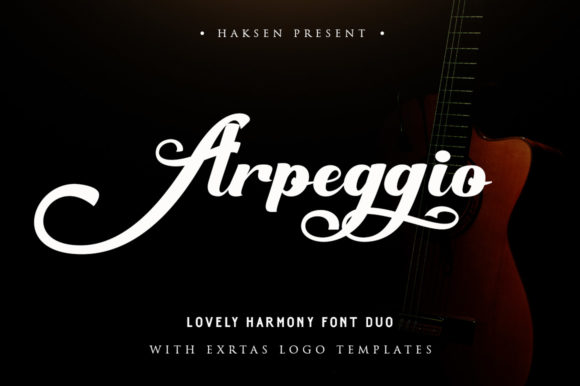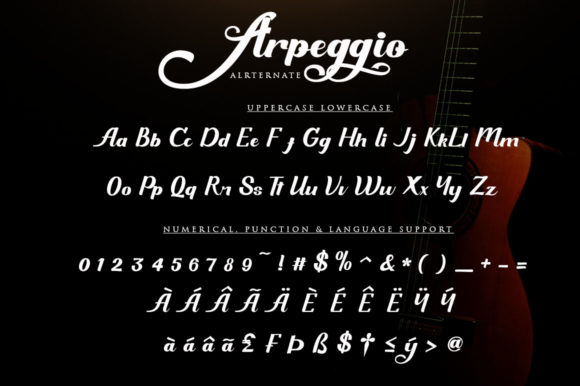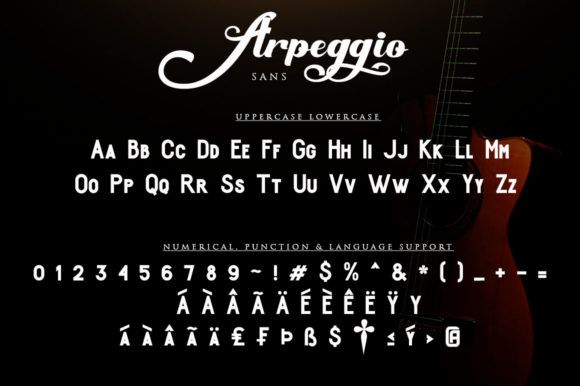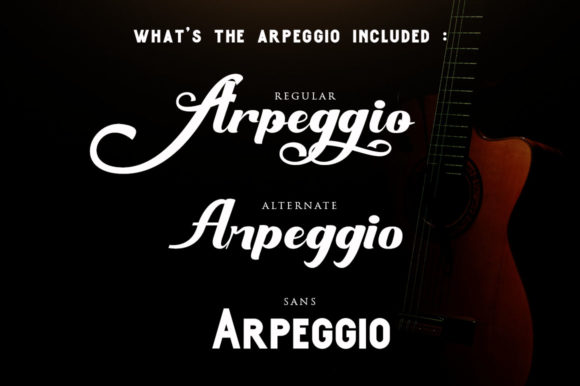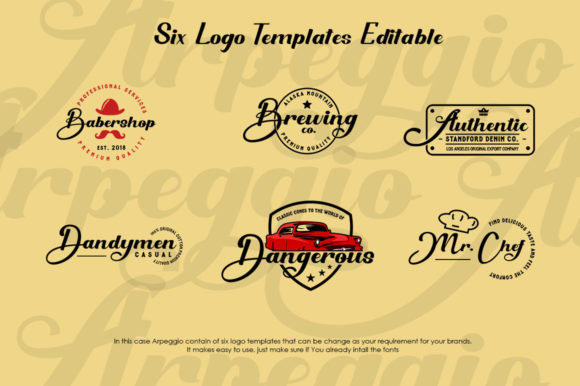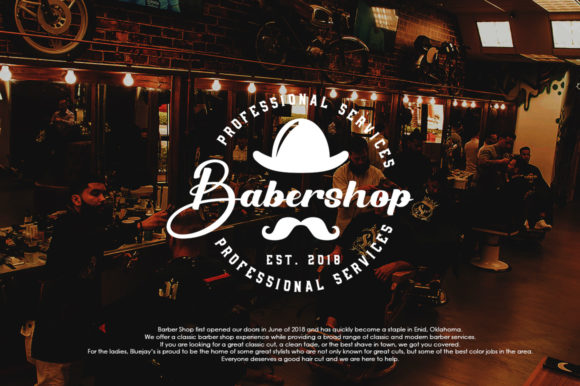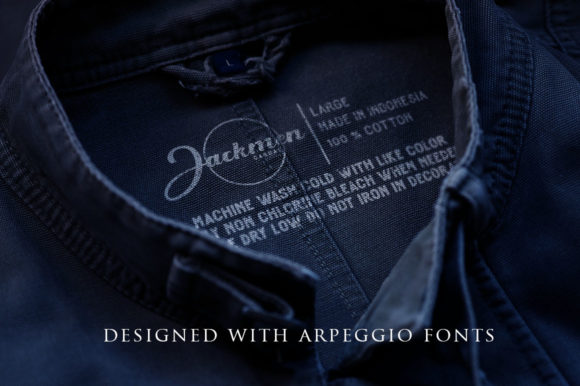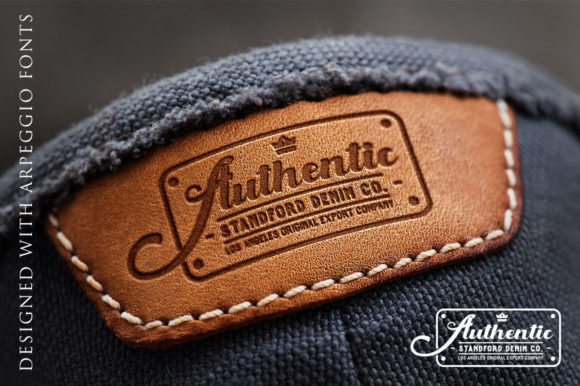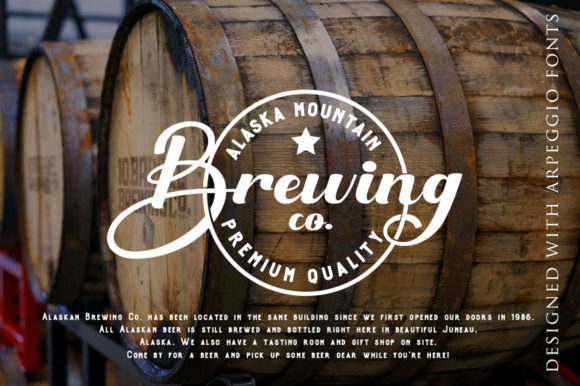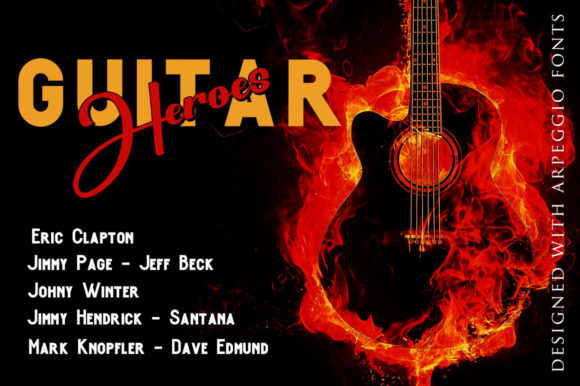
Arpeggio Duo Font
About Arpeggio Duo Font
Introducing “The Arpeggio,” a versatile handmade font duo designed to offer a wide range of creative possibilities. This font duo is more than just typefaces; it’s a design toolkit that includes both a script and a sans version, allowing you to create multiple unique designs. As a bonus, the package includes 6 logo templates, enhancing its versatility and value.
“The Arpeggio” stands out with its script and sans versions, providing flexibility in crafting various designs. Whether you’re working on greeting cards, branding materials, business cards, quotes, posters, or any project that requires a handmade touch, this font duo delivers with its distinctive and complementary styles.
The script version of “The Arpeggio” exudes a sense of handcrafted elegance, while the sans version offers a clean and modern aesthetic. The combination of both types allows you to mix and match, creating designs that seamlessly blend sophistication and simplicity.
As a bonus, the inclusion of 6 logo templates adds an extra layer of value to “The Arpeggio.” These templates provide ready-made solutions for creating visually engaging and professional logos, saving you time and effort in the design process.
In summary, “The Arpeggio” is more than just a font duo; it’s a design toolkit that empowers your creativity. Embrace its script and sans versions for a variety of applications, and explore the added value of 6 logo templates to enhance your designs with style and efficiency.